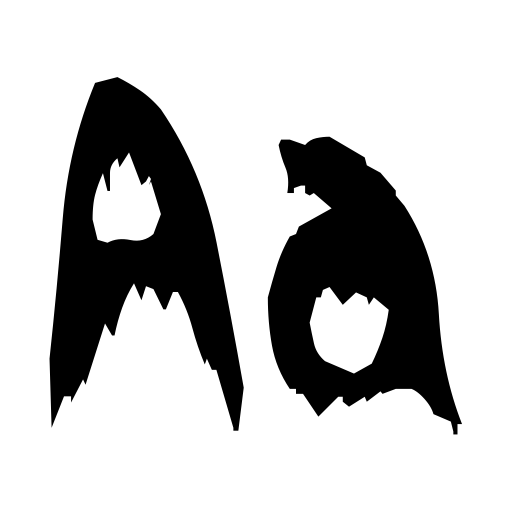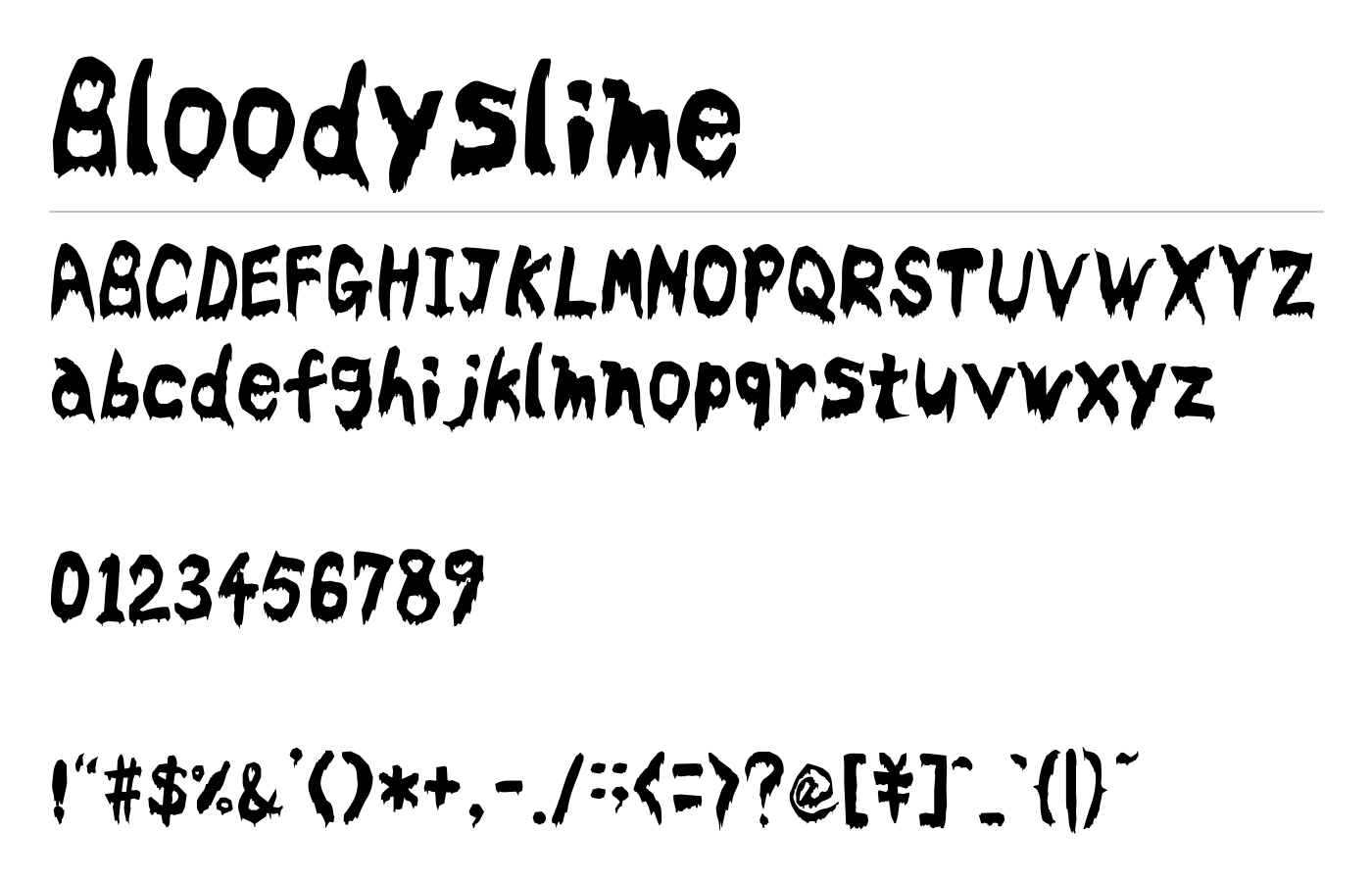
Bloodyslime is a bold, decorative display font with a horror-inspired, dripping effect that evokes a spooky, eerie mood. Its irregular, jagged letterforms and playful yet unsettling style make it ideal for Halloween designs, posters, and themed branding where a striking, dramatic impact is desired. This font works best in headlines or titles where its distinctive character can stand out and create a memorable impression.
Bloodyslime Font
About Bloodyslime Font